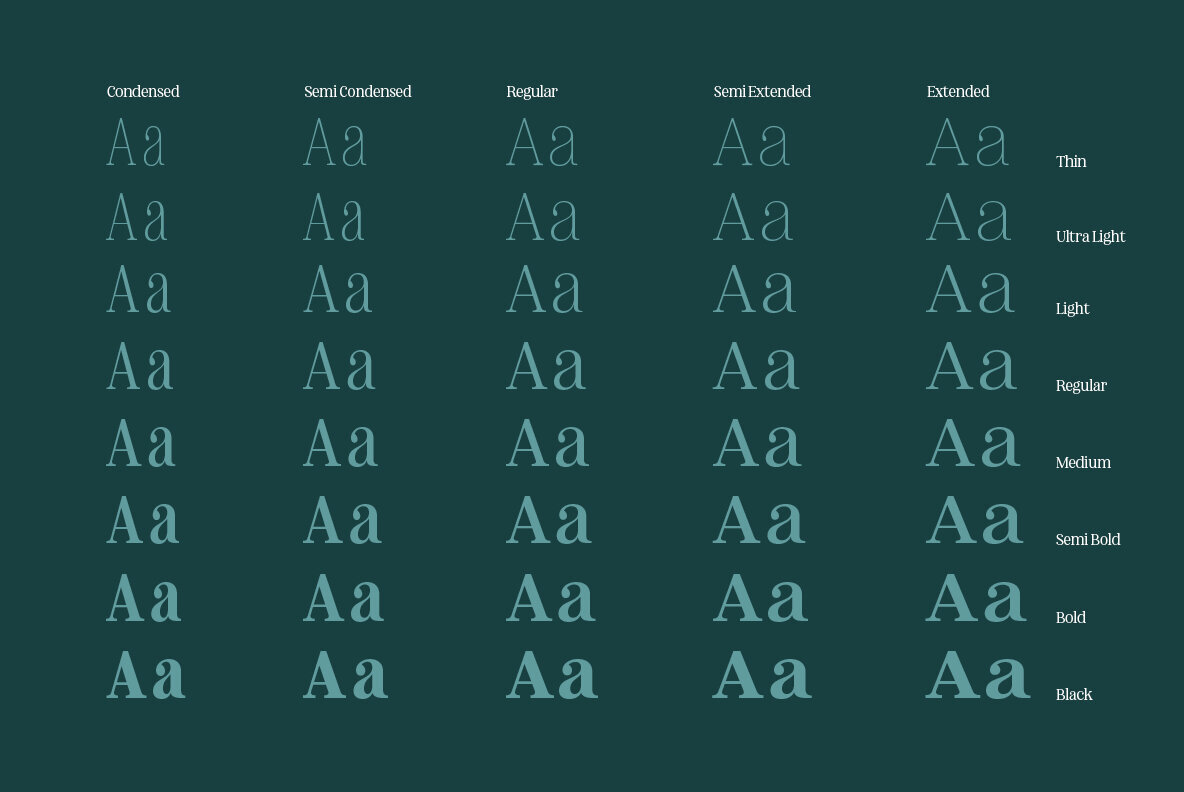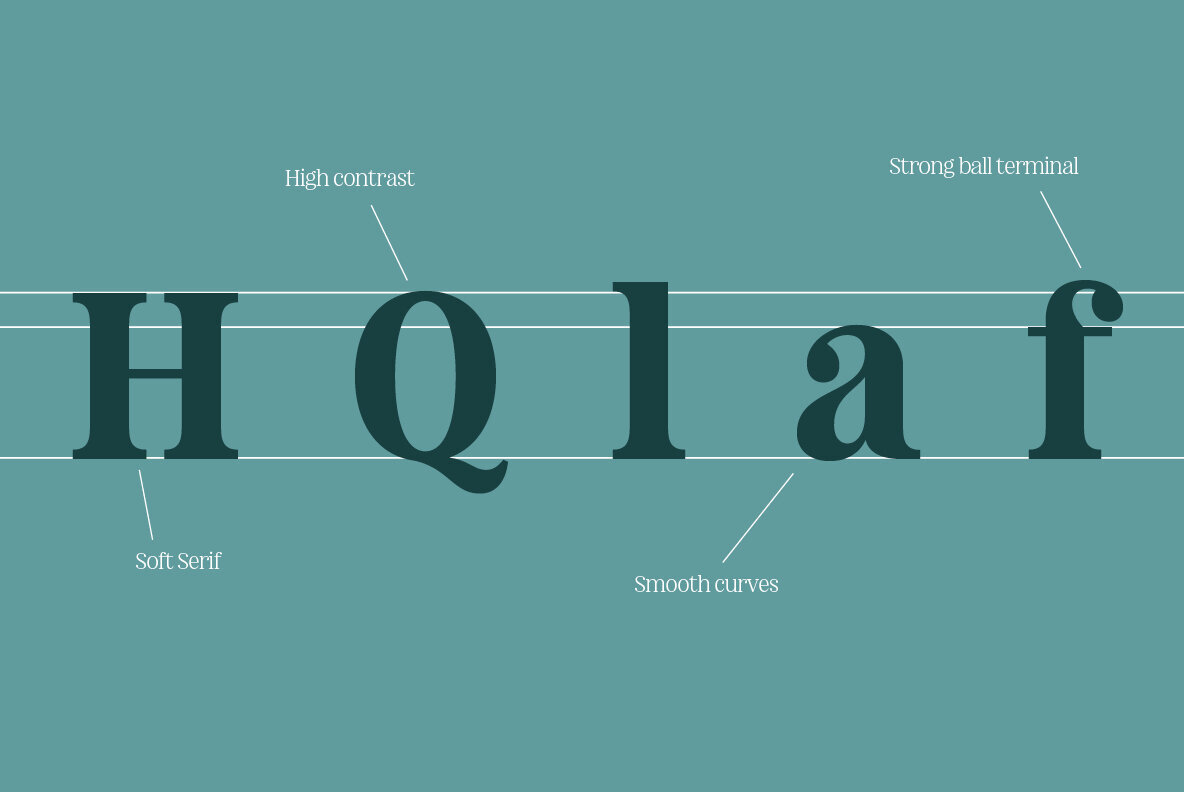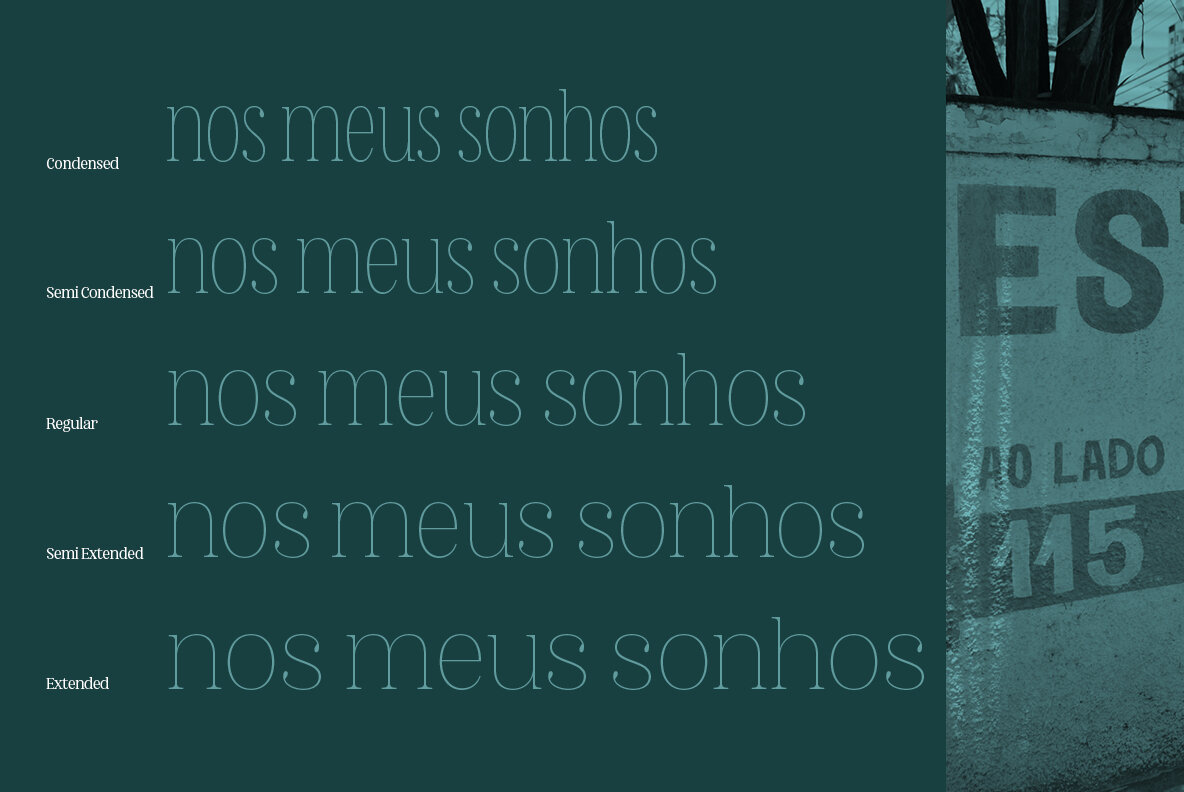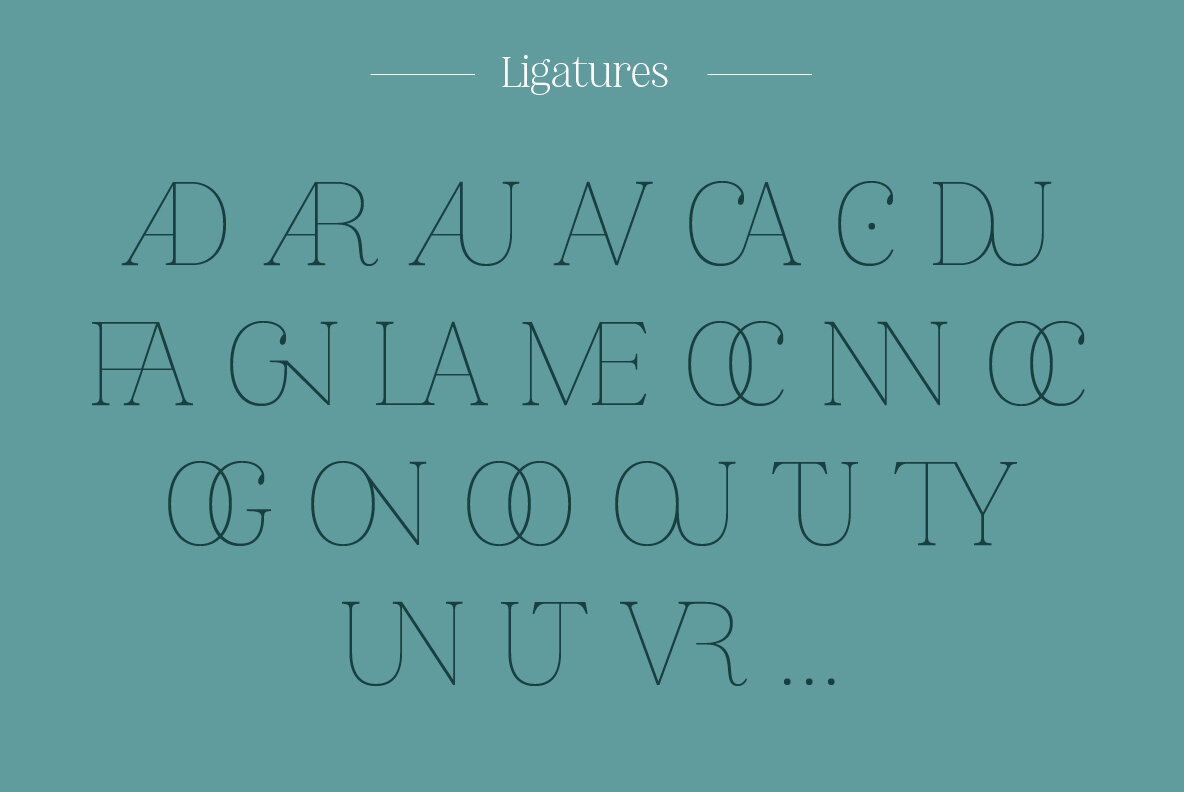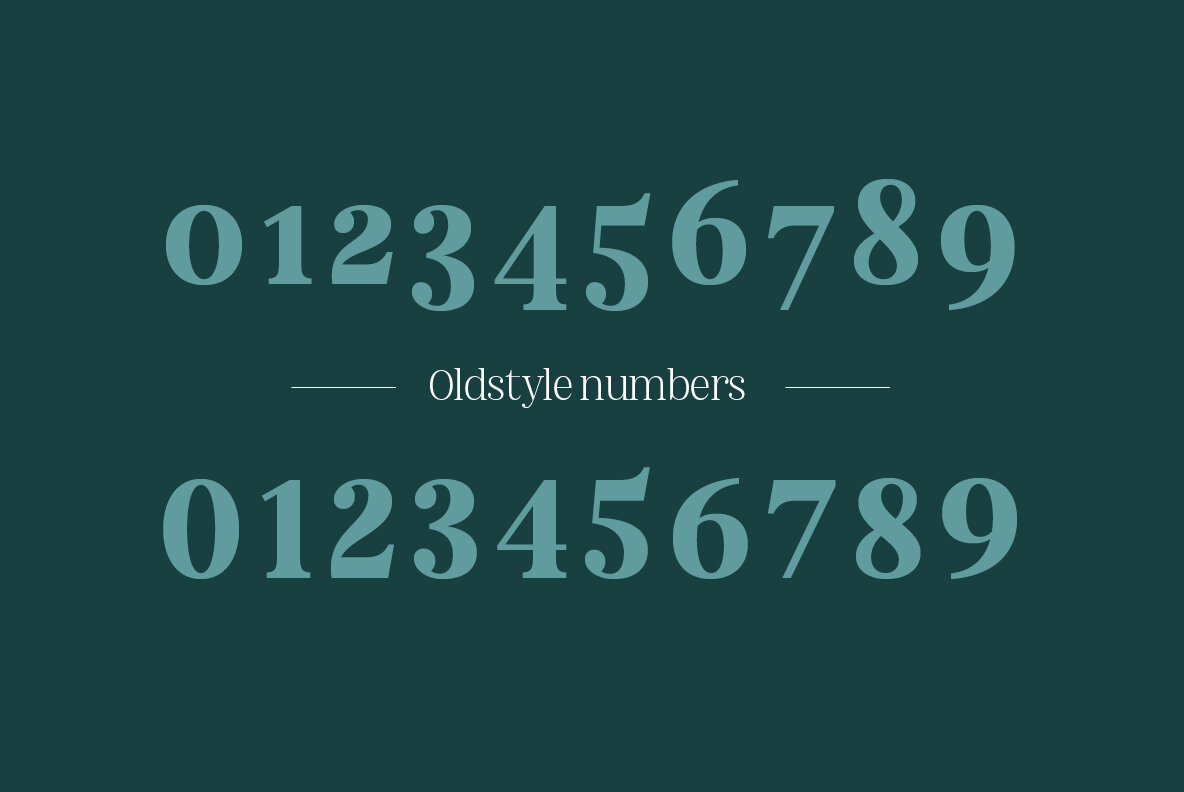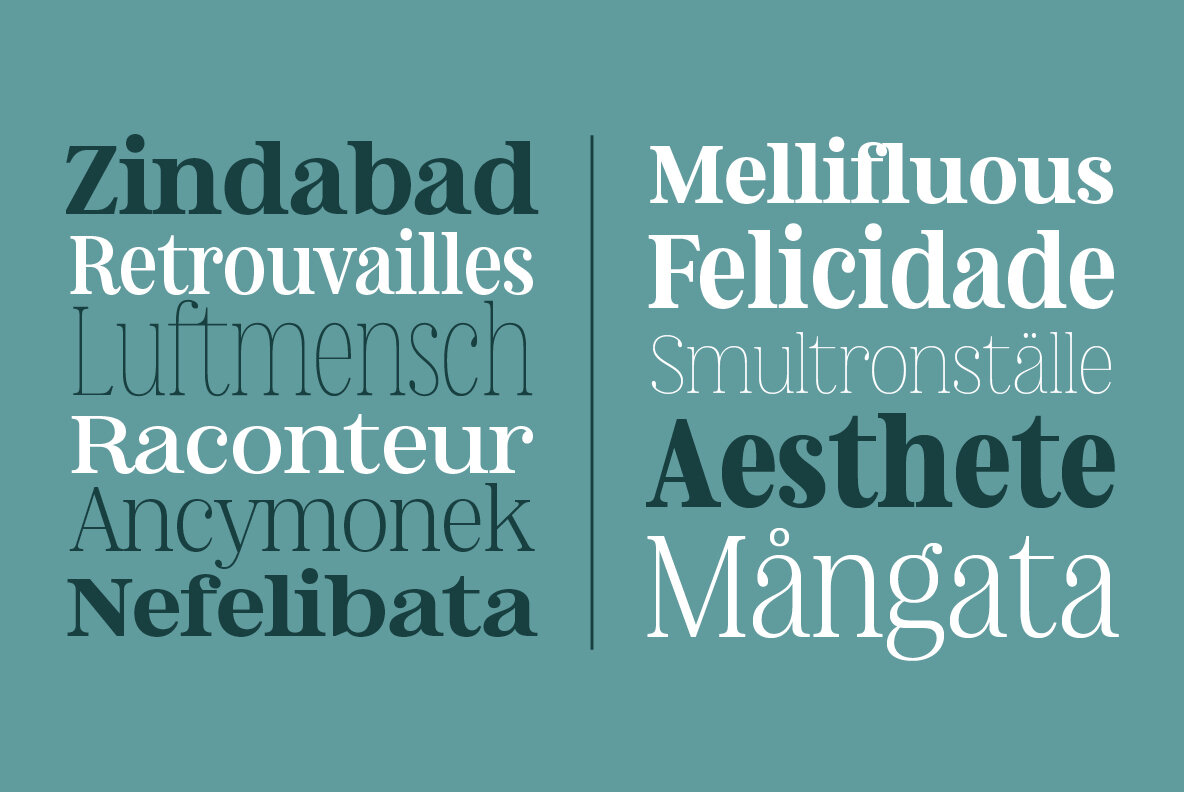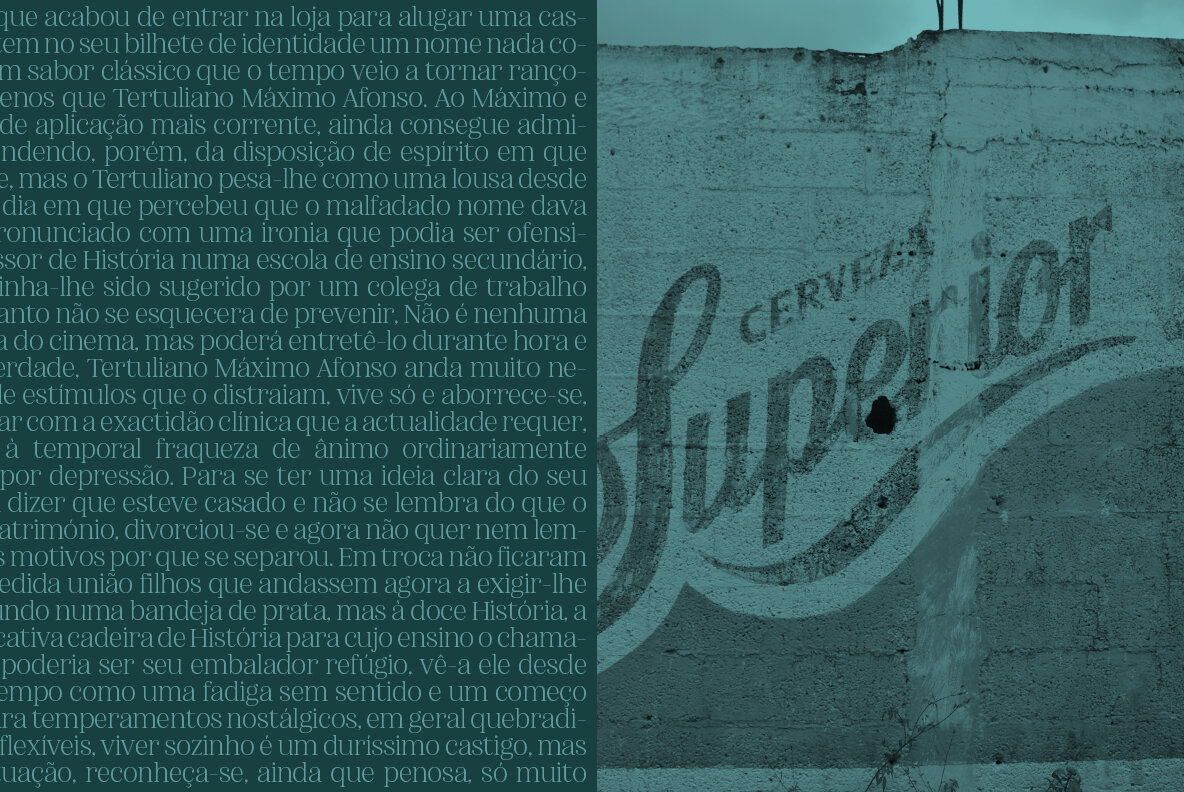
Nevoa Font
Nevoa is a typeface inspired by the vernacular calligraphy found on the streets of Brazil. The rounded letters painted on the walls of small towns have deeply inspired the creation of Nevoa.Nevoa Typeface: Inspired by Brazilian Street Calligraphy